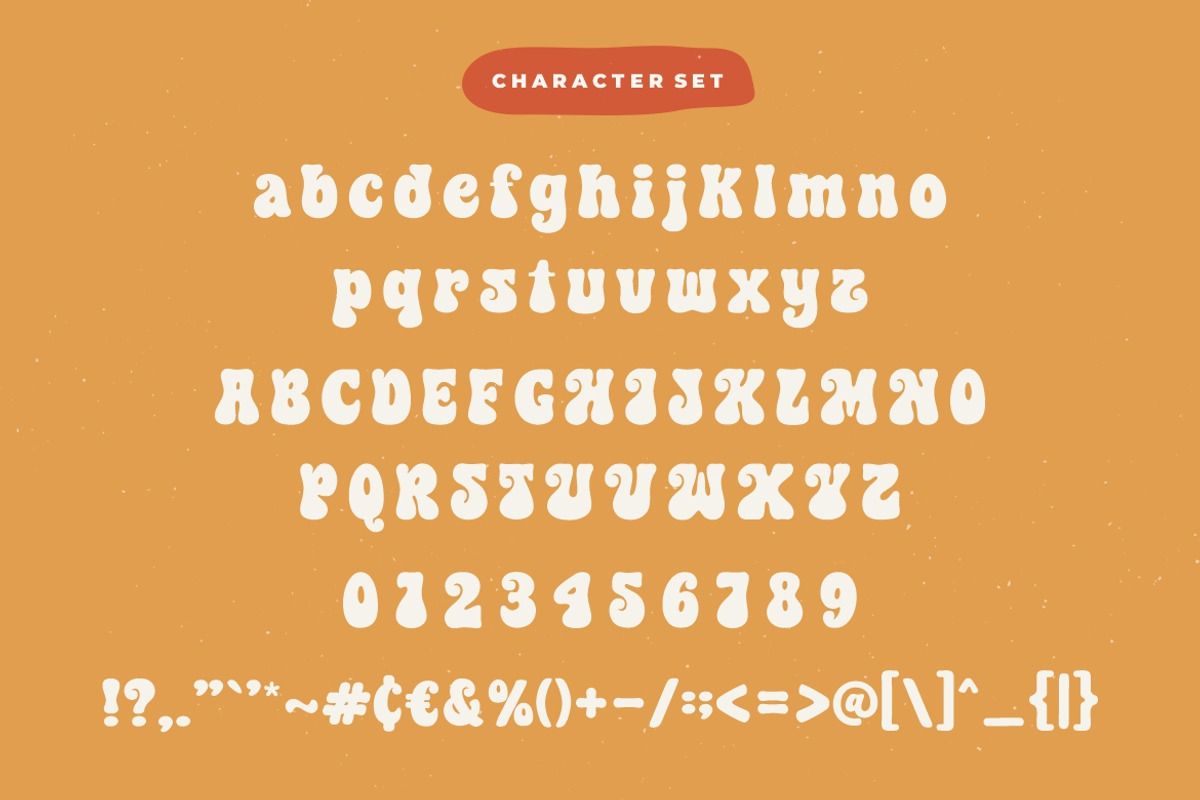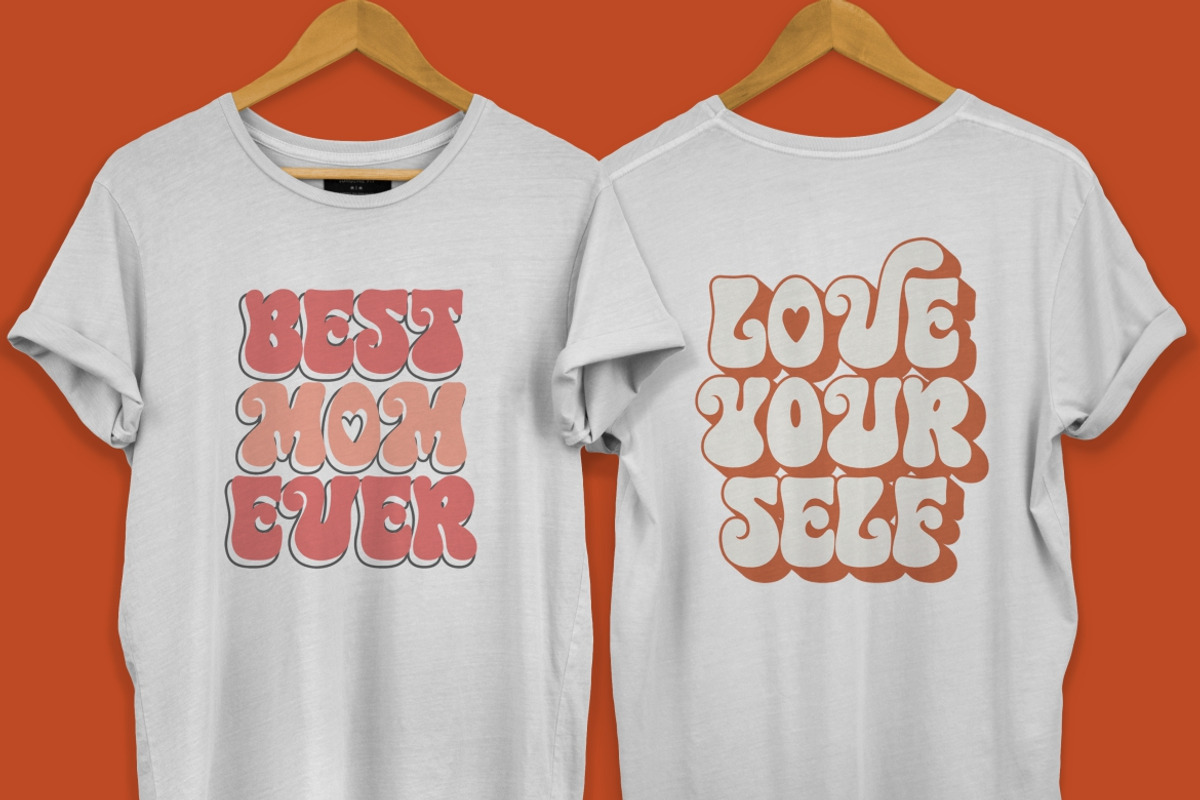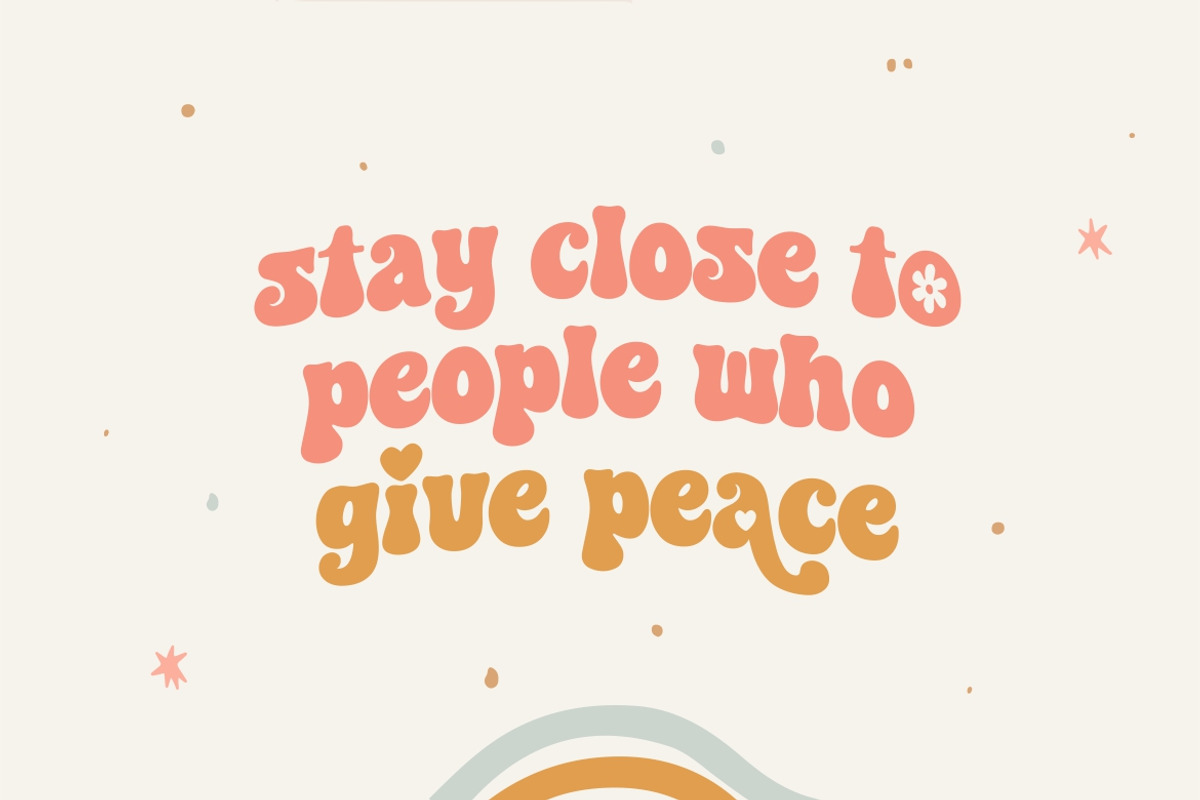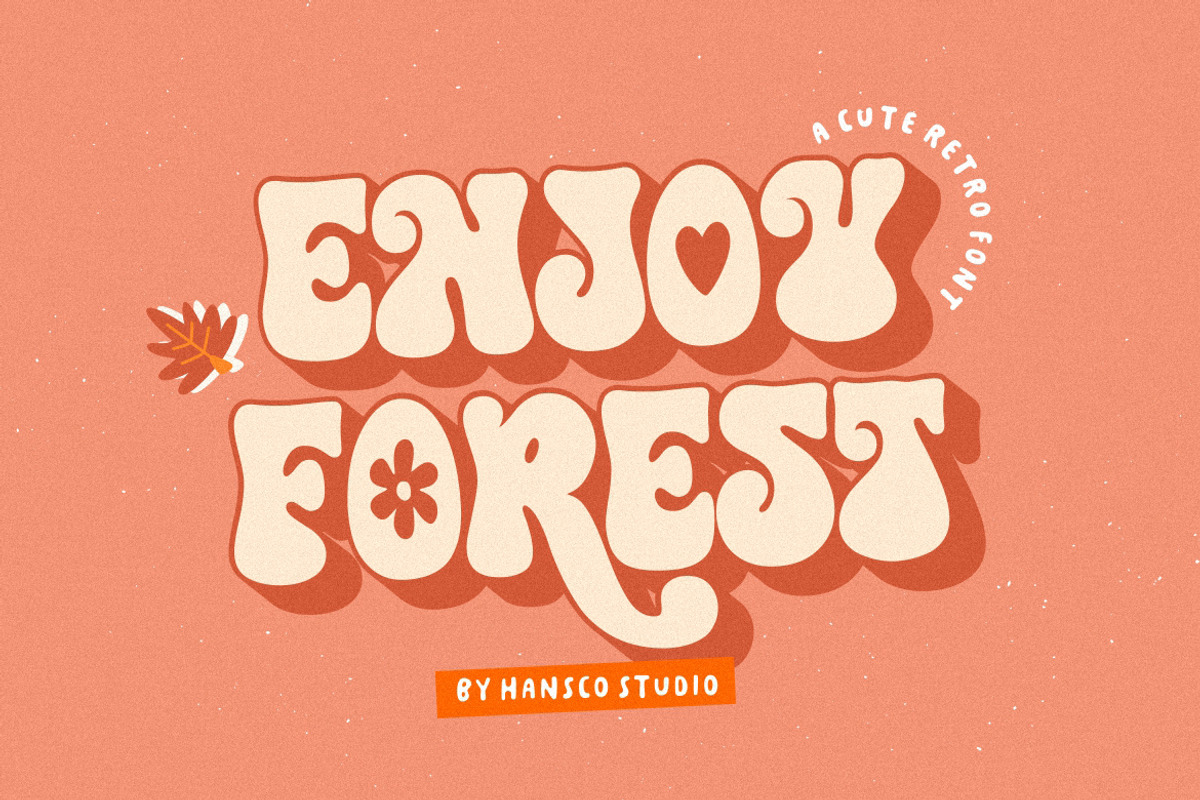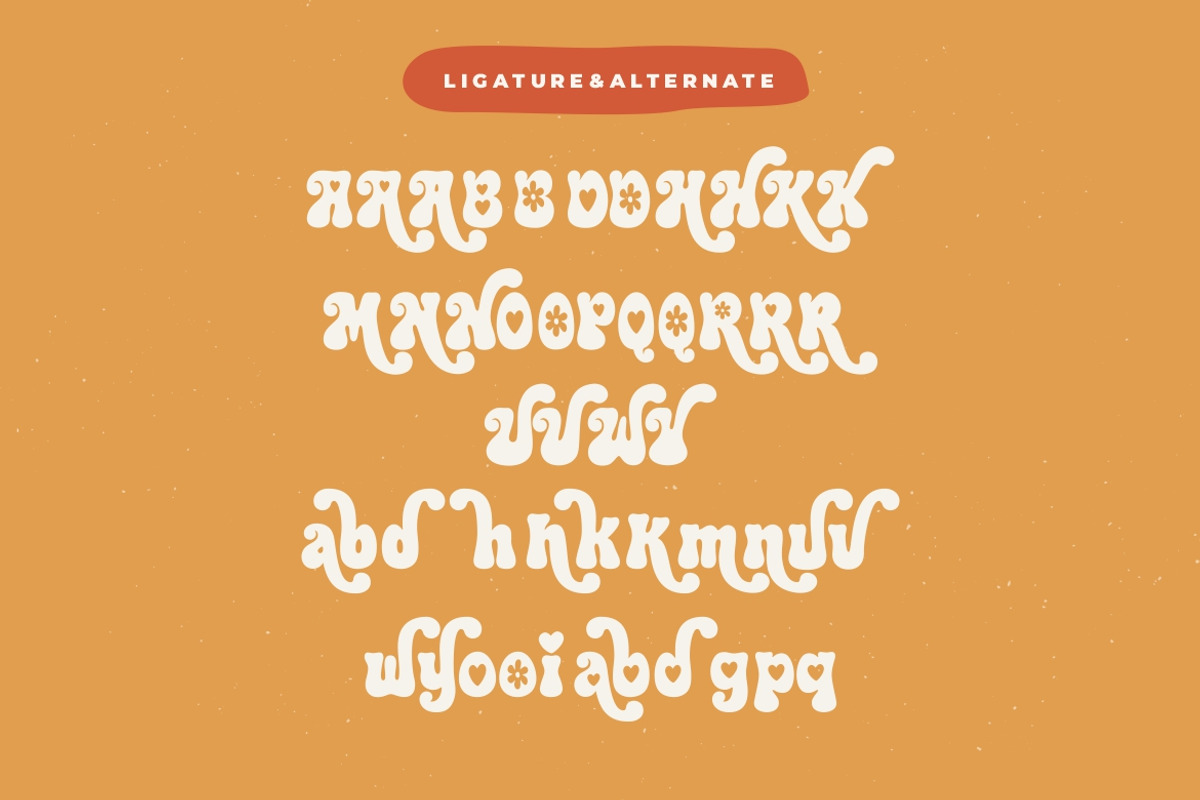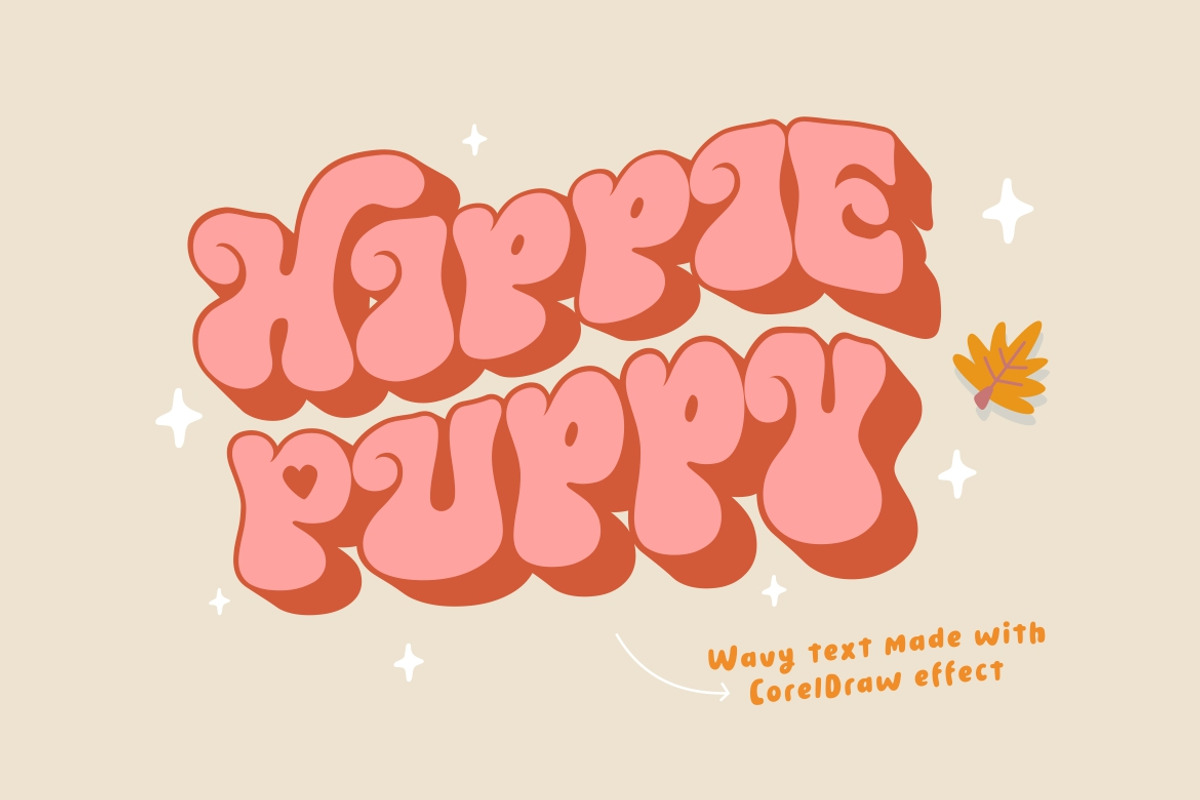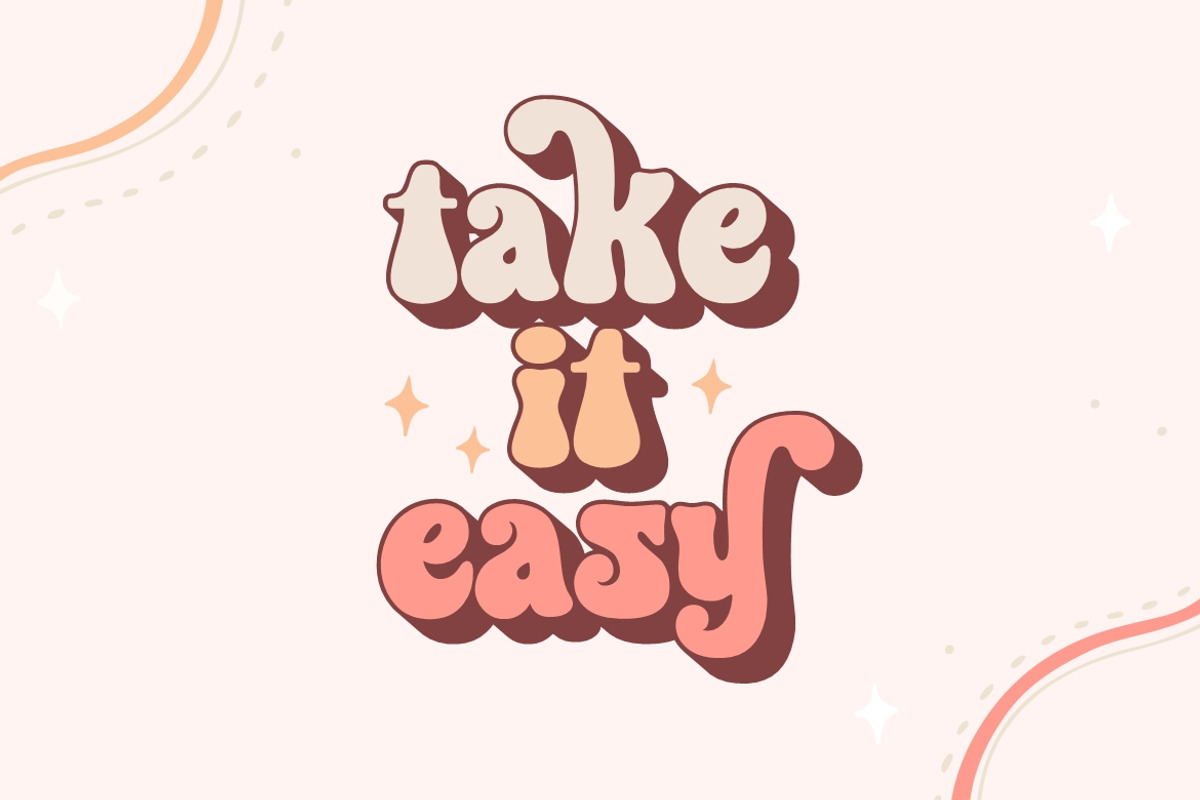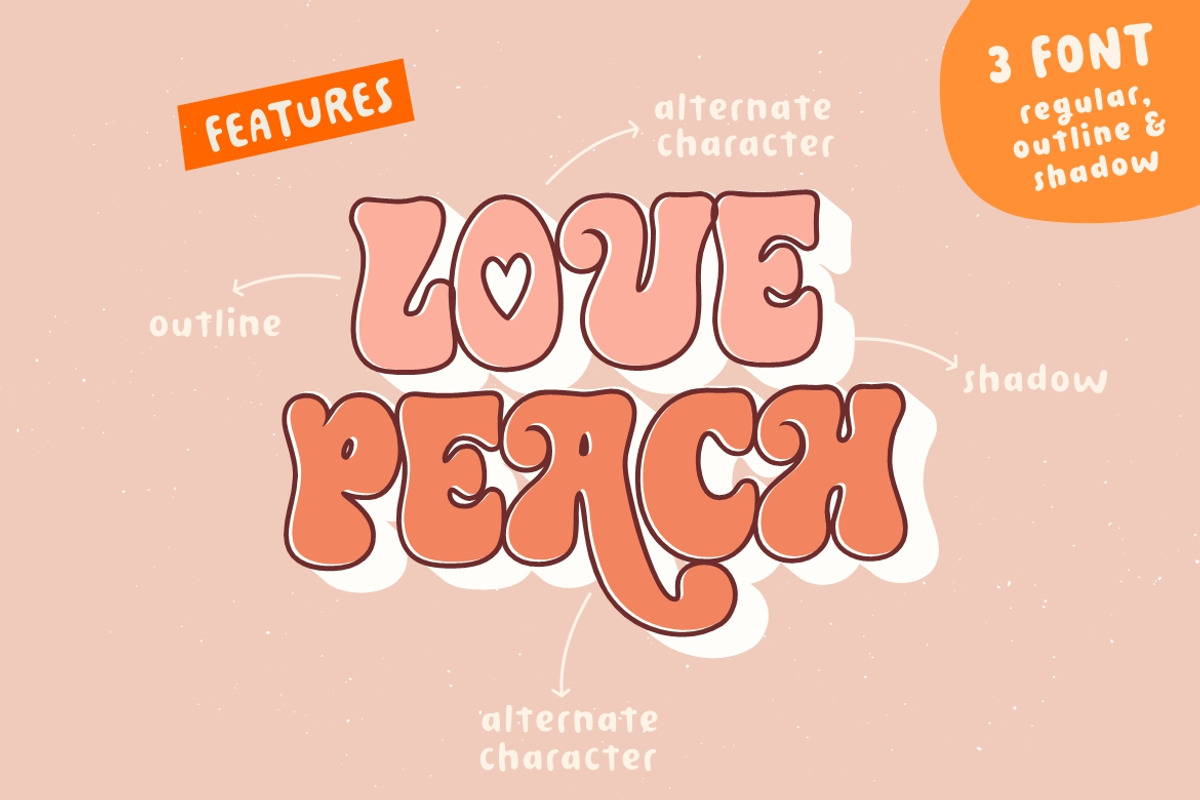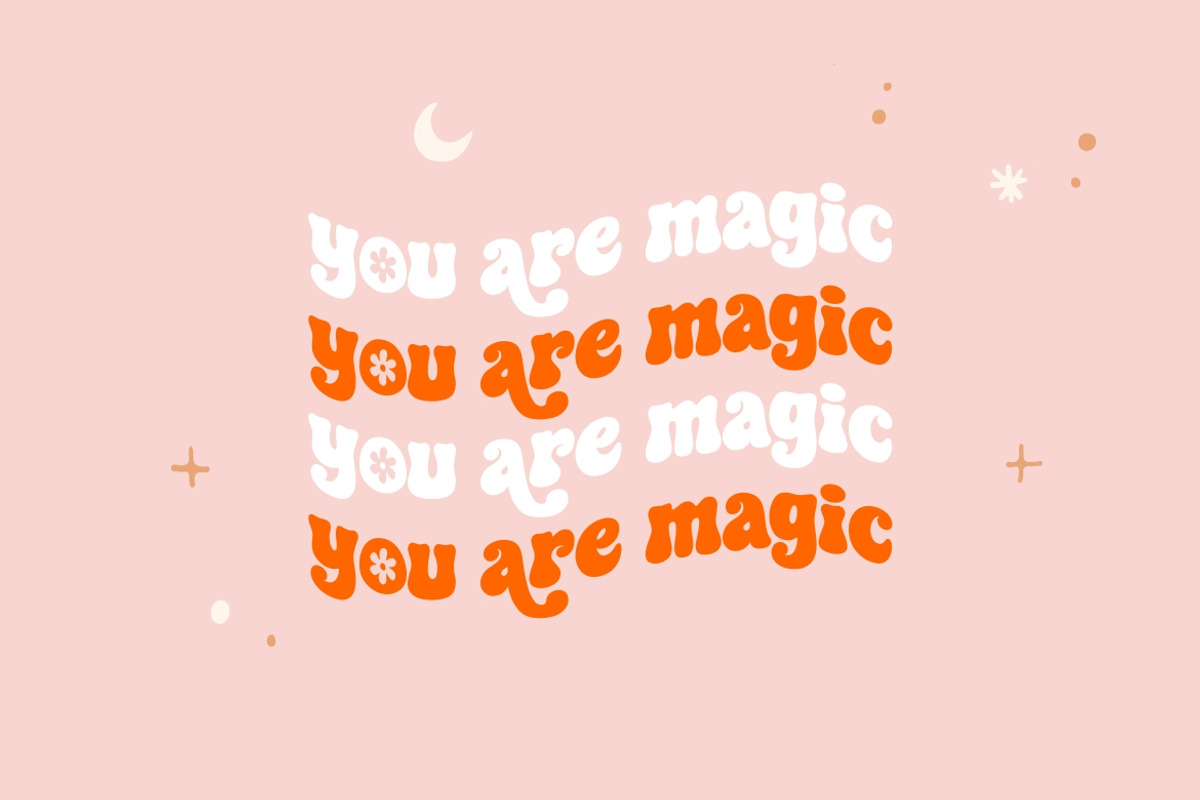
Enjoy Forest - Retro Font Style
Enjoy Forest font is a retro serif and bold display font. You will get three types of fonts in this pack, Regular, Outline and Shadow version. Use this display font to add that special retro touch to any design idea you can think of!
Very suitable for logotype, Stickers, Packaging design, Cricut Project, headlines, brand identity, t shirt or apparel industry, posters, magazines, books, YouTube, Instagram, websites, or any of your creative design projects.